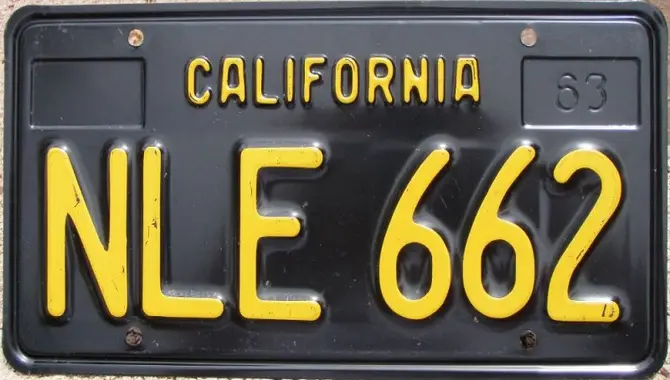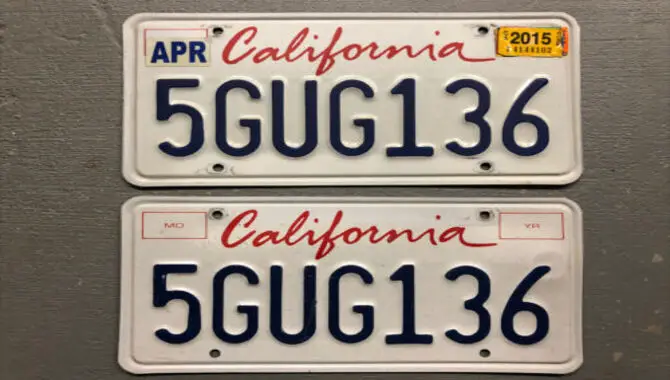
The California license plate font is a distinctive and iconic design that is instantly recognizable. Known as “California Sans,” this font features bold, uppercase letters with clean lines and a slightly condensed appearance.
The font was first introduced in the 1980s and has remained largely unchanged since then, becoming synonymous with the state’s laid-back and sunny vibe. Have you ever noticed the unique font used on California license plates?
It’s not just a random choice but a deliberate design decision that adds to the visual appeal of these plates. Here we’ll take a closer look at the California plate font and explore its various aspects. Get ready for a visual delight as we dive into the fascinating world of California license fonts.
Detail information about California License Plate Font
The intricate details of the California license plate font come to life with a closer examination. This iconic font carries with it the history and evolution of California and the spirit of a dynamic state. Its impact on graphic design is profound, as designers and enthusiasts weave it seamlessly into their work.
From the captivating lettering to the graphic design elements, the license plate font represents far more than just a typeface. As you delve into the fascinating world of this font, you’ll discover its unique place in typography and its influence on industry trends.
The Characteristics of California License Plate Font
- – Typeface: The California license plate font is a modified version of the DIN 1451 typeface, with a wider and more condensed design.
- – Features: The font features rounded edges, clean lines, and a bold appearance.
- – Color: The font is typically white on a black background, although some specialty plates may use different colors.
- – Size: The font size is standardized at 64 mm in height and 44 mm in width for the lettering and 44 mm in height for the numbers.
- – Design elements: The font includes small design elements such as a dot above the letter “i” and dashes between the letter and number groups.
How To Create A California License Plate Font – Step-by-Step Guideline
Creating a California license plate font can be a fun and creative project. To achieve the iconic look of a California license plate, follow these steps. By following these steps, you can create your own California license plate font that captures the iconic style and design of the real thing. Let your creativity flow and have fun designing your own unique font!
- – Start with a bold, blocky font: Look for a font that has thick lines and sharp edges to mimic the style of the official license plates.
- – Adjust the letter spacing: License plates often have tight letter spacing, so decrease the spacing between each letter to create a more authentic look.
- – Add embossed effects: To give your font depth and dimension, add a subtle embossed effect to mimic the raised letters on a real license plate. This can be achieved by duplicating the text layer, offsetting it slightly, and applying a lighter shade or gradient fill.
- – Use proper colours: The California license plate font uses black text on a white background, so make sure to stick to this color scheme for authenticity.
- – Include bullet points: To truly capture the essence of a California license plate, consider adding small bullet point separators between each character.
Fonts Used On California License Plates
California license plates have showcased various fonts throughout their history. The current font used on California license plates, “California Sans,” is a bold, condensed style with rounded edges and unique letterforms. Designed to ensure easy readability from a distance, “California Sans” has achieved iconic status and is closely linked to the state’s renowned car culture.
The Popularity Of License Plate Fonts
People worldwide widely recognize and immensely popularize license plate fonts. The font currently used on California license plates, “California Sans,” showcases bold and block-style lettering with a subtly slanted design.
With its unique aesthetics and vintage charm, this font appeals to automotive enthusiasts and graphics and typography enthusiasts. Its widespread appeal is evident in its appearances across different media platforms, including movies, TV shows, and advertisements.
The Impact Of California License Fonts On Design
We can’t underestimate the impact of California plate fonts on design. “California Sans,” the unique font used on license plates, adds character to vehicles and contributes to the aesthetic appeal of the state’s roads. Its bold, easily readable design, reminiscent of classic car culture in California, has made it an iconic font.
From graphic design to typography, license plate fonts have become associated with the state’s image and lifestyle. People worldwide widely recognize and appreciate the font in movies, TV shows, or advertisements. Download this iconic California script for free and experience the casual handwriting tradition of Mistral with a touch of California dreamin’.
4.What Is A License Plate Font?
Ans: The font used on California license plates is called “DMV Standard.” It’s a bold, sans-serif typeface with rounded edges. People have been using this font since the 1990s because it is designed to be easily legible from a distance.
5.What Font Was Used For The 1937 California License Plates?
Ans: The font for the 1937 California license plates was “California Old Style.” It had elegant and distinctive serif letterforms with tall, narrow letters and rounded edges.